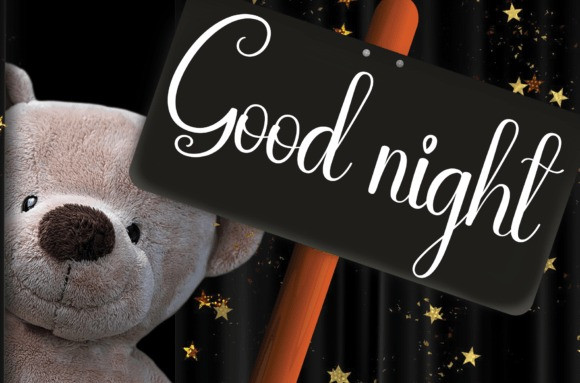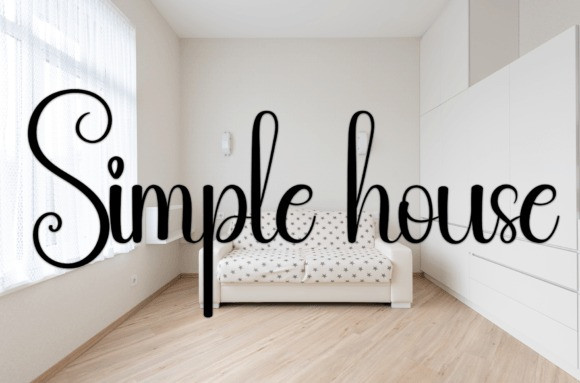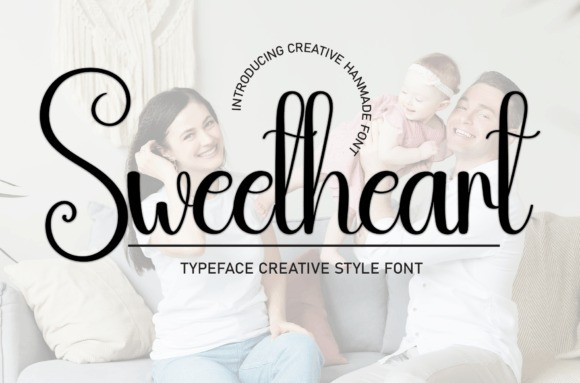
Sweetheart Script Font
Sweetheart Script Font is a sweet handwritten font. Friendly and cute, this font is ideal for writing wedding invitations, cards, or any other design that might need a fun touch!